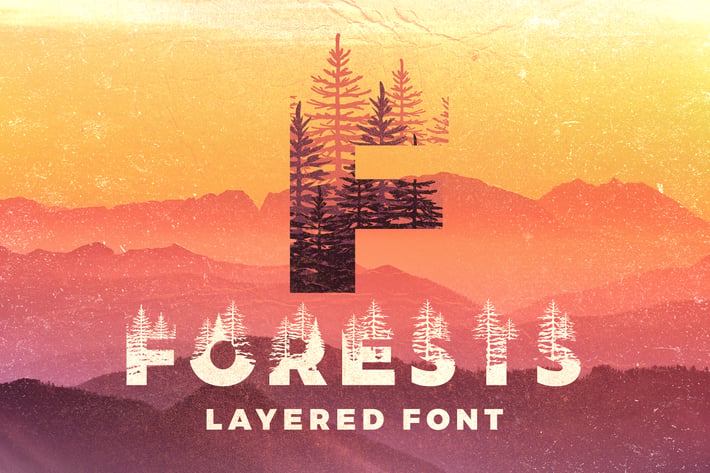
Forests Layered Font
It is very easy to use. Write with all 3 layers, 2 layers or just 1, change the color of each layer to get different effects and illustrations. Make sure to always type with CAPS on. The font has only uppercase letters and numbers and lowercase won't work.
Letters & numerals
* This font has no punctuation or multilingual support.